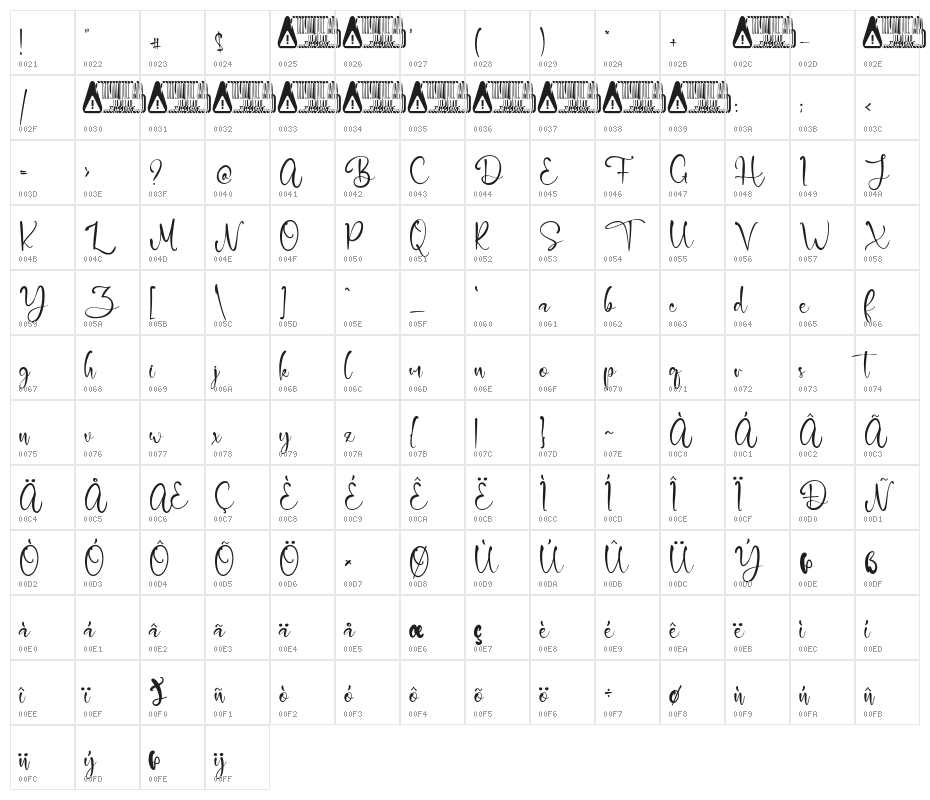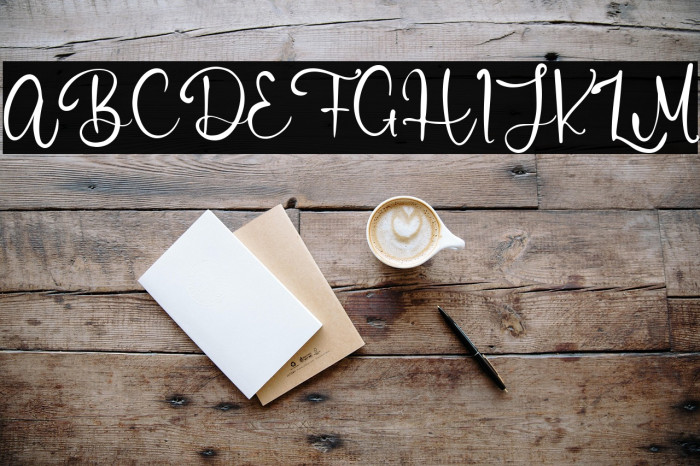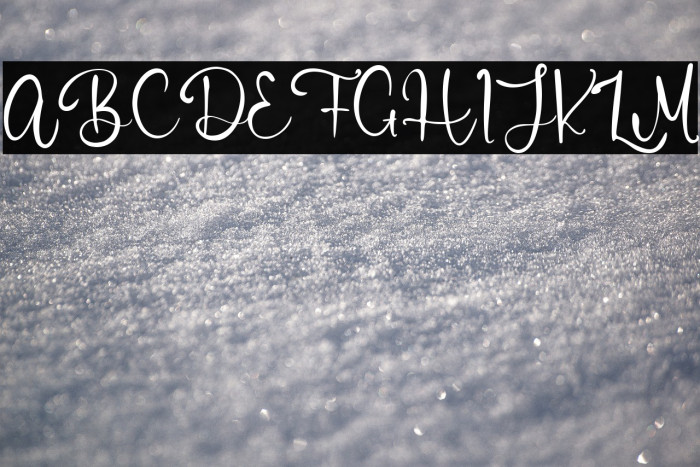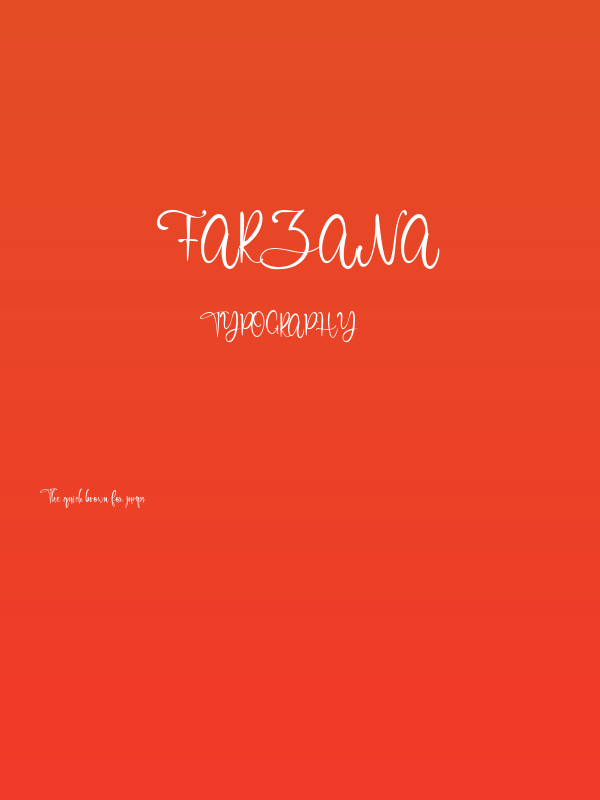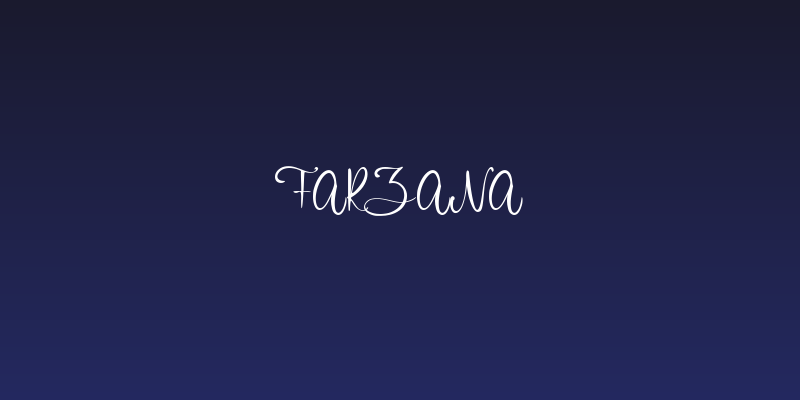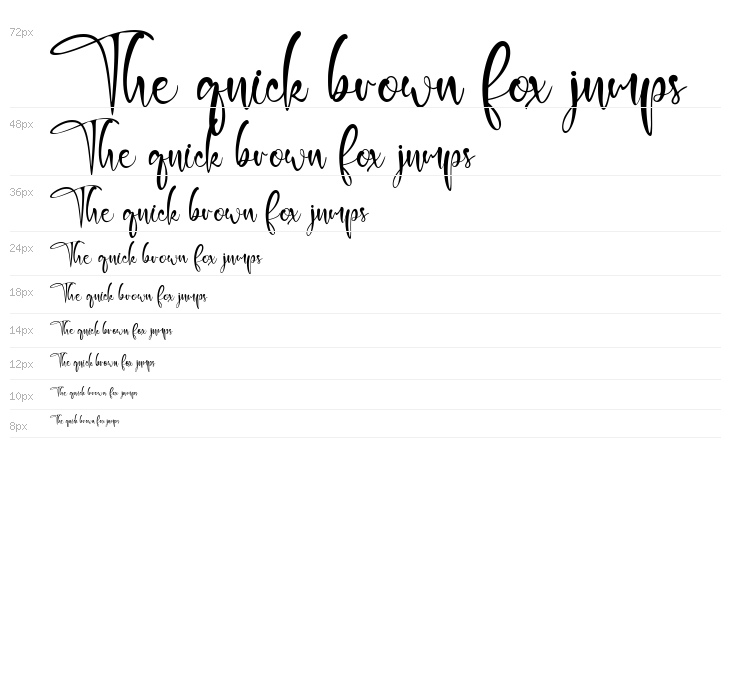
Farzana Font
Farzana Description
This font features an elegant and flowing script style, characterized by its smooth, cursive strokes and graceful curves. The uppercase letters are ornate and decorative, with a consistent slant that adds a sense of movement and fluidity. The lowercase letters maintain a similar style, with some letters featuring unique loops and swashes that enhance the overall aesthetic. The numerals and special characters are designed to complement the letterforms, maintaining the same elegant and sophisticated look. This font is ideal for projects that require a touch of elegance and sophistication, such as wedding invitations, branding, and other creative designs.
| Overall Style | Elegant, Decorative |
| Use Case | Logos, Invitations, Decorative Text |
| Proposed Projects | Wedding invitations, branding, greeting cards, and elegant packaging. |